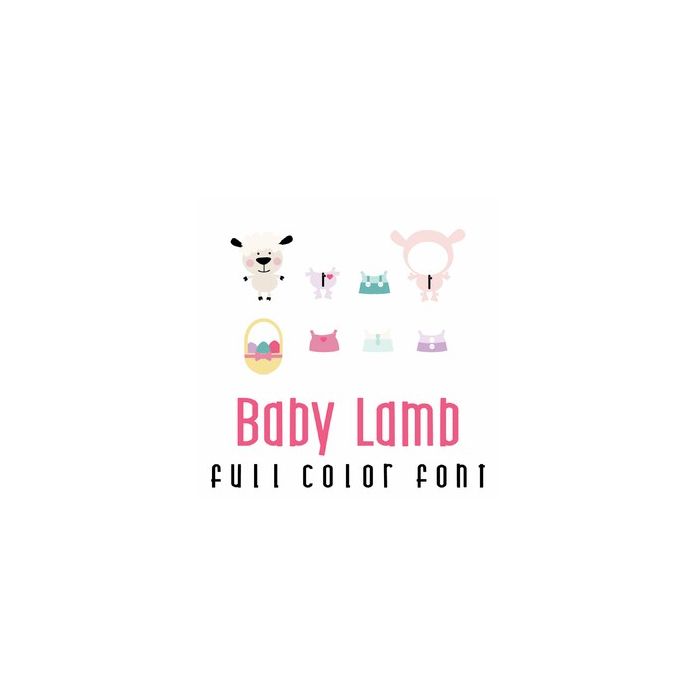
This adorable full-color doodlebat font features 26 images for an adorable dress-up lamb. Perfect for cards, crafts, gifts, decor, scrapbook pages, planner stickers, and more!